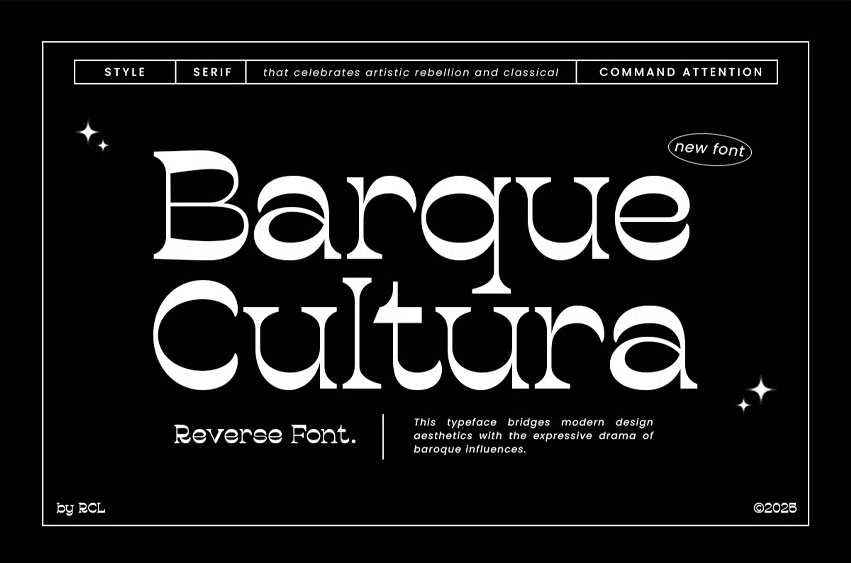
Barque Cultura Font draws inspiration from baroque elegance and cultural expressionism, featuring high contrast strokes, sculptural curves, and unconventional forms. This reverse serif typeface is designed to stand out—perfect for making a statement in editorial layouts, fashion branding, cultural posters, and artistic identity systems.
Each glyph is carefully crafted to feel sophisticated yet experimental, making Barque Cultura ideal for designers seeking a font that blends classical richness with modern creativity. With both timeless elegance and contemporary rebellion in its DNA, this font brings drama and beauty to every composition.